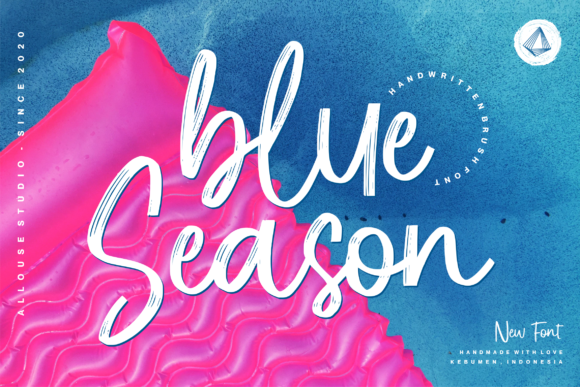
Discover the Timeless Charm of Blue Season Font
Remember the moment when you stumbled upon the perfect font to elevate your design project? For me, it was that instant when I laid eyes on Blue Season Font. Its elegant, relaxed script immediately captured my attention, and I knew I had to learn more about this beautiful typography.
Blue Season Font is a masterfully crafted script font designed to bring a touch of sophistication and adaptability to any design. Whether you’re working on a branding project, creating a wedding invitation, or crafting a digital product, this font is perfect for those seeking a refreshing and classic look. Its versatility and timeless charm make it a valuable asset for designers looking to elevate their work and leave a lasting impression.
Key Features of Blue Season Font
- Font Styles: Blue Season Font comes in 6 different font styles: Regular, Italic, Bold, Bold Italic, Outline, and Shadow.
- Character Count: Blue Season Font contains a wide range of characters, including uppercase and lowercase letters, numbers, punctuation marks, and special characters.
- Language Support: The font supports multiple languages, including English, Spanish, French, German, Italian, Portuguese, and many more.
- Unique Characteristics: Blue Season Font features a unique, hand-drawn design with a distressed texture, giving it a vintage and artistic feel.
Blue Season Font Review
First off, I want to say that I’m a fan of the Blue Season Font’s ✨ playful and whimsical vibe. It’s perfect for any design project that needs a touch of freshness and modernity. The font is well-suited for branding, digital products, and even print materials. The variety of weights and styles also makes it a great choice for creating visually appealing typography.
Some of the key strengths of the Blue Season Font include:
- ✨ Beautiful, modern design that’s perfect for creative projects
- ✨ Wide range of weights and styles to suit various design needs
- ✨ Highly legible and easy to read
- ✨ Suitable for digital and print materials
- ⚠️ Not ideal for formal or professional projects that require a more conservative tone
- ⚠️ Some users may find the font too casual or playful for their taste
Overall, I think the Blue Season Font is a great choice for designers who want to add a touch of modernity and whimsy to their projects. While it may not be suitable for every project, it’s a versatile font that’s sure to impress.